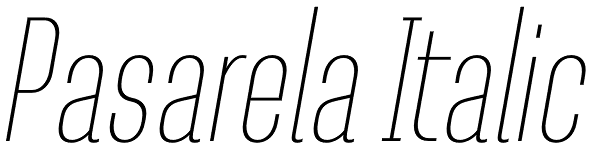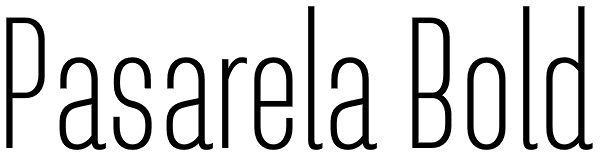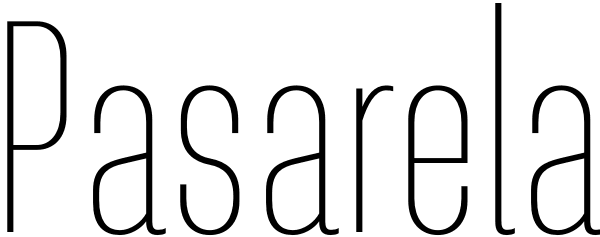
Pasarela
The street is the new runway. Pasarela is a display typeface inspired by the new culture of fashion in the streets. A global phenomenon across continents, traveling through social networks, fashion bloggers and street style. Everything is possible...
Pasarela Italic
Pasarela Borders
Pasarela Bold
Pasarela Bold Italic